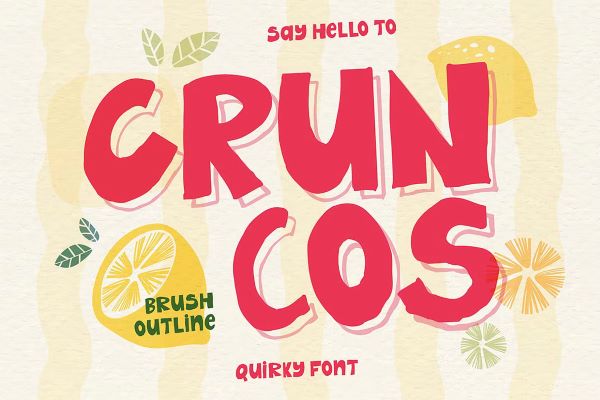
Cruncos Font
Cruncos Font is a playful all-caps brush typeface featuring solid and outline styles for flexible design combinations. Inspired by food packaging, café menus, posters, and cheerful branding, it delivers a quirky and friendly personality. With rough edges and organic strokes, it creates warm expressive typography and stands out as a lively option within creative and energetic free fonts collections.
➤ Font Name: Cruncos
➤ Designer: Artisan Themes
➤ Style: Handwritten